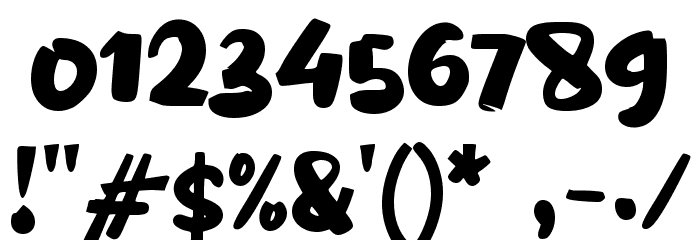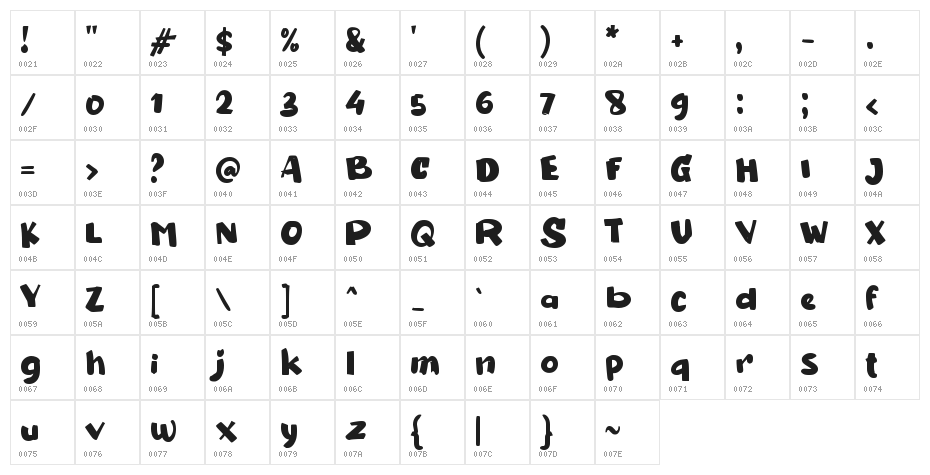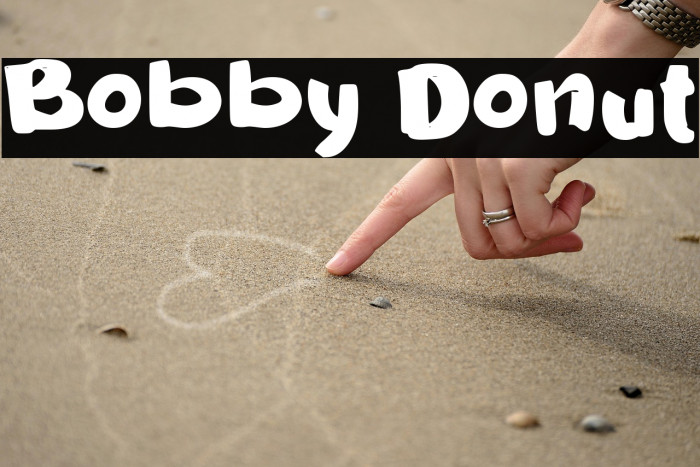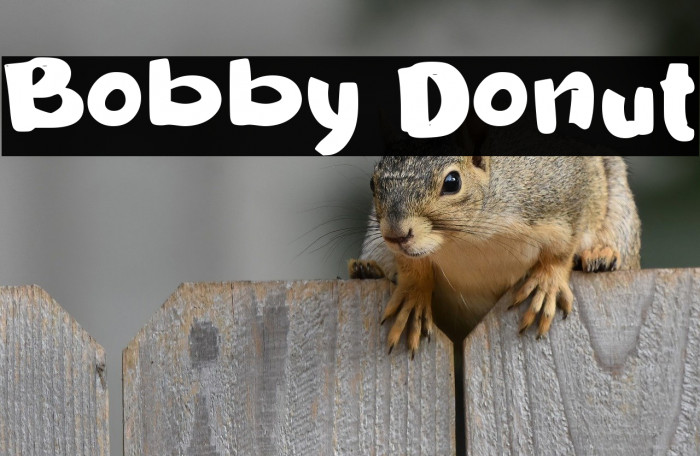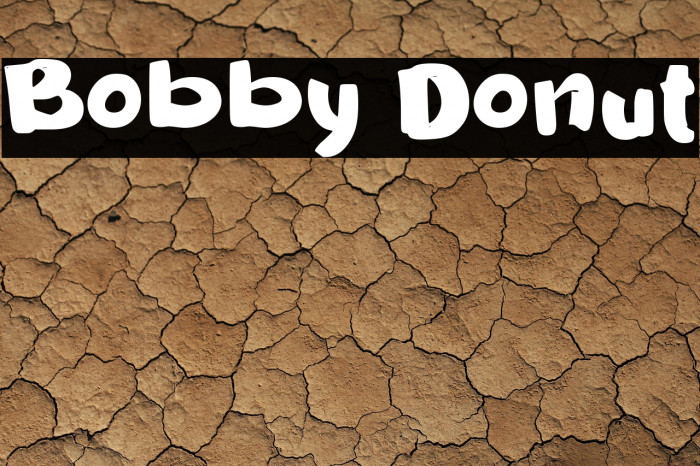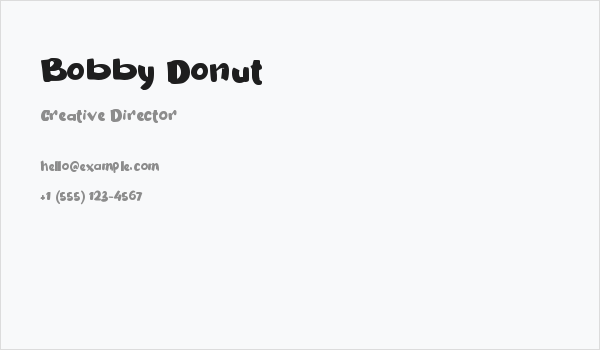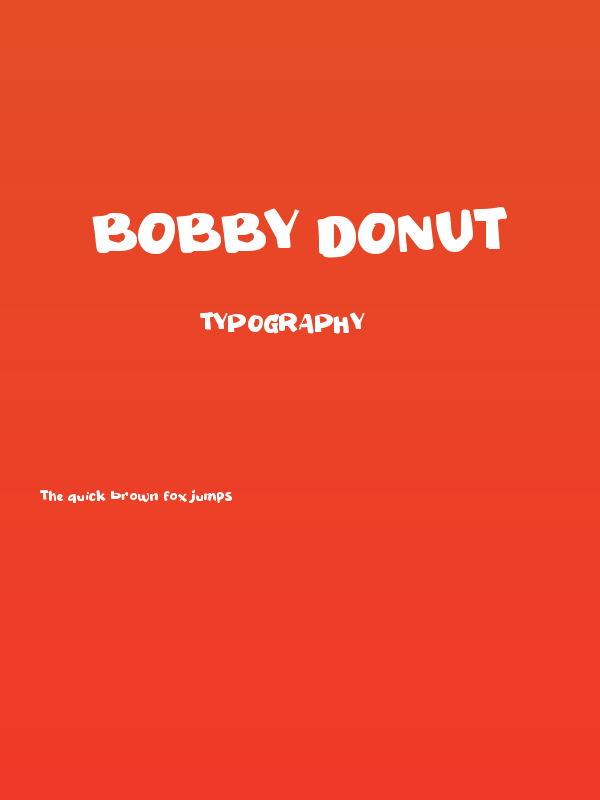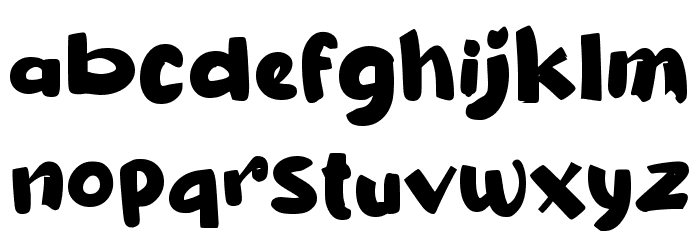
Bobby Donut Font
Bobby Donut Description
This playful and bold font features a chunky, rounded style that exudes a sense of fun and whimsy. The characters are thick and slightly irregular, giving them a hand-drawn appearance that adds to their charm. The uppercase and lowercase letters maintain a consistent weight, while the numbers and special characters follow the same playful aesthetic. The font's overall look is reminiscent of a cartoon or comic style, making it ideal for projects that require a lighthearted and approachable feel.
| Proposed Projects | Ideal for children's books, comic strips, playful branding, and party invitations. |